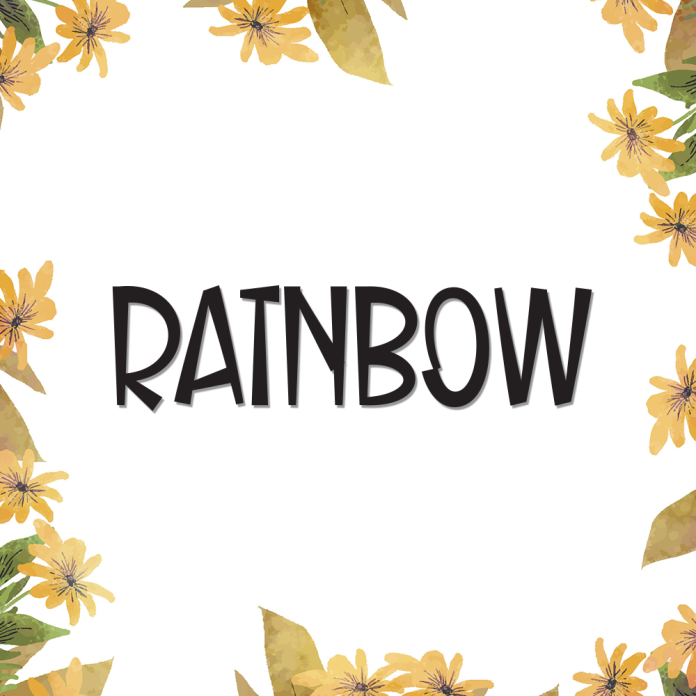
Rainbow is a vibrant and eye-catching display font that radiates happiness and color! With bold letterforms and a whimsical design, this font brings a sense of fun and wonder to your creative projects.
Perfect for children's books, posters, birthday themes, YouTube thumbnails, apparel prints, and playful branding, Rainbow is your go-to font for joyful and imaginative designs.
Bold and rounded display characters
Fun and family-friendly vibe
Great for large headlines and logos
Uppercase & lowercase letters
Let your creativity shine in every color with Rainbow – a font full of imagination and joy!